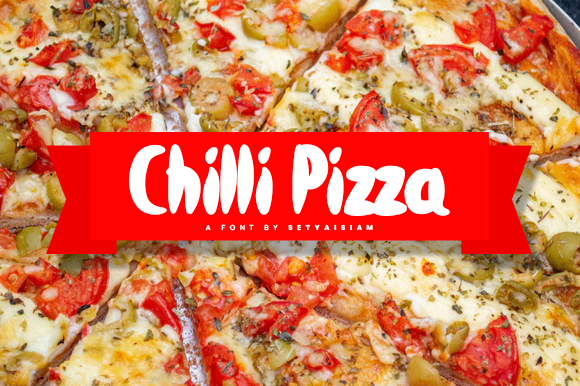
Introducing Chilli Pizza Font - The Secret Ingredient for a Spicy Design Fiesta!
In a world of bland and ordinary fonts, Chilli Pizza Font emerges as a vibrant burst of flavor, ready to ignite your designs with a fiery kick. Inspired by the tantalizing shape of chili peppers, this display font is a culinary delight for the eyes, leaving a lasting impression like a perfectly balanced pizza.
From the tantalizing curves of its letterforms to the zesty boldness of its strokes, Chilli Pizza Font embodies the essence of spice and excitement. It's the perfect font for adding a dash of intrigue to t-shirt designs that demand attention, whether you're a seasoned designer or just starting your creative journey.
Picture this: Your t-shirts adorned with Chilli Pizza Font become the talk of the town, turning heads wherever you go. Imagine the compliments you'll receive, the conversations you'll spark, and the smiles you'll evoke with every design you create.
With Chilli Pizza Font as your secret ingredient, your t-shirts become more than just clothing; they become canvases of expression, reflecting your unique personality and style. You'll find yourself reaching for this font time and again, drawn to its irresistible charm and ability to transform ordinary designs into extraordinary creations.
So, if you're ready to spice things up and make a statement with your t-shirt designs, Chilli Pizza Font is your perfect partner in crime. It's the font that will make your designs sizzle, leaving a lasting impression that's as unforgettable as a perfectly cooked pizza.
Embrace the fiery spirit of Chilli Pizza Font and let your creativity run wild!